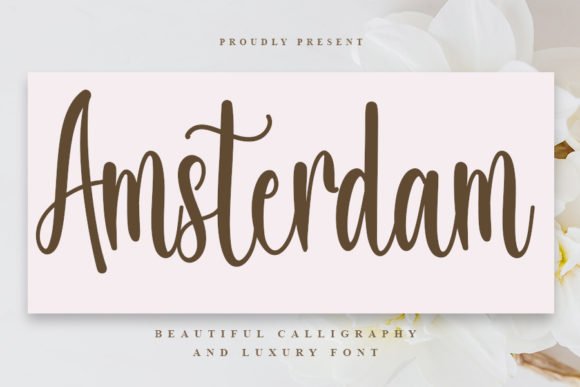
The Perfect Blend of Class and Whimsy: Introducing Amsterdam Font
You know that moment when you’re working on a design project and everything feels just right? The colors, the textures, the typography – it all comes together in perfect harmony. For many designers, that moment is made possible by the right font. And that’s where the Amsterdam Font comes in – a ravishing handwritten font that masterfully blends classy calligraphic influences with a fresh, contemporary feel.
Whether you’re working on a wedding invitation, a restaurant menu, or a brand identity, the Amsterdam Font is the perfect choice. Its unique blend of elegance and playfulness makes it versatile and valuable for designers who want to add a touch of sophistication to their projects. With the Amsterdam Font, you can create designs that feel authentic, yet stylish and modern.
Amsterdam Font Key Features
- Font Family: Amsterdam Font comes in two font families, Amsterdam and Amsterdam Pro, with Amsterdam Pro being a more condensed version.
- Size: Amsterdam Font has a large character set, including 750+ glyphs, making it suitable for a wide range of languages and applications.
- Unique Characteristics: The font features a unique blend of modern and vintage elements, with clean lines, geometric shapes, and subtle texture, making it perfect for branding, advertising, and editorial design.
Amsterdam Font Review
Overall, I think the Amsterdam Font is a nice addition to any project. It’s elegant, yet modern, making it suitable for a wide range of applications. ✨ The font’s unique style and subtle flair make it perfect for creating visually appealing text.
- ✨ Elegant and modern design: The Amsterdam Font’s design is a great blend of classic and modern elements, making it a versatile choice for various projects.
- ✨ Wide range of weights: The font comes in multiple weights, from light to bold, allowing designers to choose the perfect weight to suit their project’s needs.
- ⚠️ Limited language support: The Amsterdam Font currently only supports a limited number of languages, which may be a concern for projects that require multilingual support.
- ⚠️ Not suitable for body text: While the Amsterdam Font works well for headings and titles, it may not be the best choice for body text due to its unique style and potential readability issues.
Overall, the Amsterdam Font is a solid choice for designers looking for a stylish and modern font. While it has some limitations, its unique design and wide range of weights make it a great addition to any project.
Tips for Getting the Most Out of the Amsterdam Font
The Amsterdam Font is a beautiful, elegant script font. To get the most out of it, use it for:
- Special occasion cards and announcements.
- Luxury brand logos and packaging.
The Amsterdam Font is perfect for:
- Creating a vintage or classic look.
- Adding a touch of sophistication to your designs.
- Creating a unique and memorable brand identity.